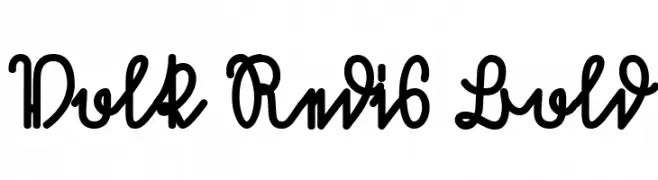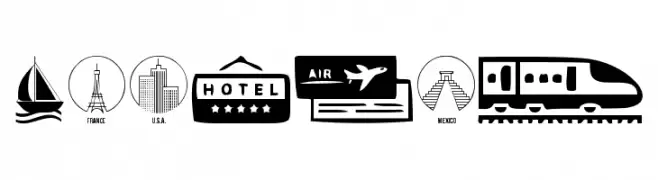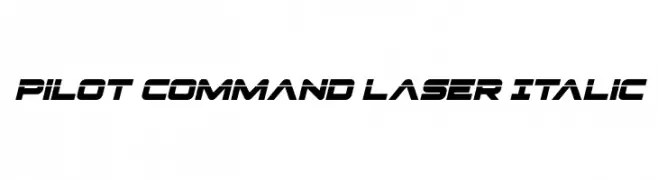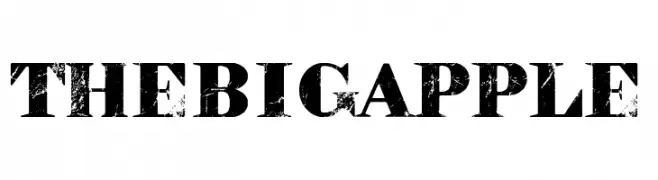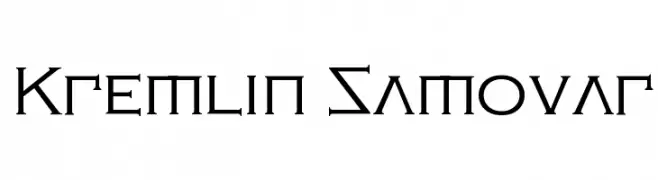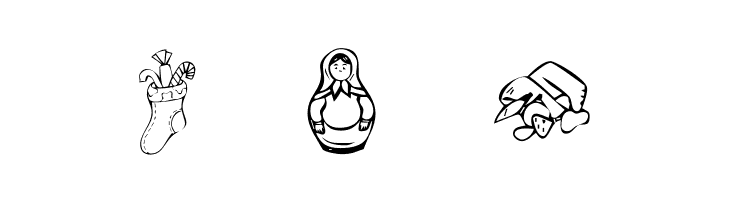
Welcome to our Top Fonts section — where popularity meets quality. These are the fonts most downloaded, shared, and used by designers across the world this year. Whether you’re working on branding, web design, or social media visuals, this curated list helps you pick fonts that already resonate with millions of users.
Each top-rated font stands out for its design balance, readability, and versatility. You’ll find everything from modern sans serifs to elegant scripts, vintage serifs, and minimalist displays. If you’re unsure where to start, the Top Fonts section is your shortcut to tried-and-true typefaces that simply work.
A bold, expressive script font with flowing, interconnected letters.
Bold, simplified pictograms for tourism and travel themes.
A bold, playful font with curved, cartoonish characters.
A bold, italicized, futuristic font with sharp angles and a sleek, aerodynamic design.
A fluid and artistic font with interconnected strokes and a modern, decorative style.
A jagged, distressed font ideal for horror themes.
A bold, distressed font with a vintage, rugged appearance.
A bold, dripping font ideal for horror-themed designs.
A bold, italic serif font with elegant curves and pronounced serifs.
A bold, geometric font with angular, architectural elements.
Designers love Volk Redis Bold, Tourism, WE ARE THE WORD, Pilot Command Laser Italic and lanitta for their clean forms and broad use cases — from brand identities to landing pages and posters.